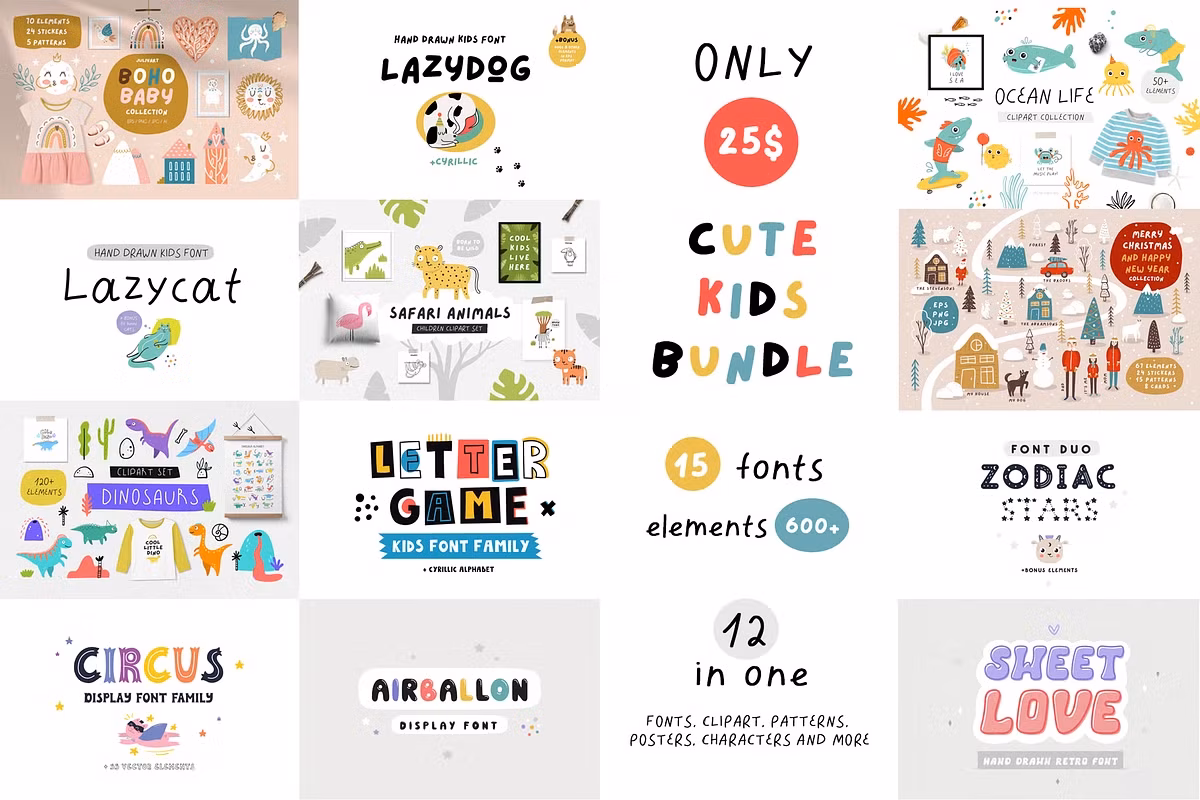
KIDS BUNDLE – Fonts & Clipart Free Download is a joyful and colorful collection packed with playful fonts and adorable clipart elements, perfect for all things kid-related. Whether you're designing for classroom activities, children’s books, birthday party invites, product packaging, or educational apps, this bundle has everything you need to create fun, engaging visuals.
The fonts included are easy to read, full of personality, and designed with young audiences in mind—ranging from bubbly handwritten styles to blocky, cartoon-like typefaces. The matching clipart adds even more creative freedom with cute illustrations that make your projects pop.
Add color, charm, and creativity to your next kid-friendly design with the all-in-one fun of the KIDS BUNDLE!